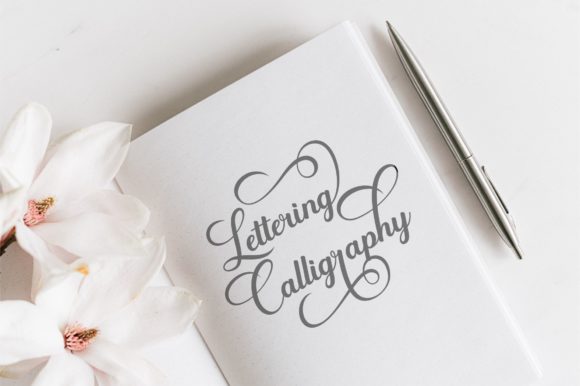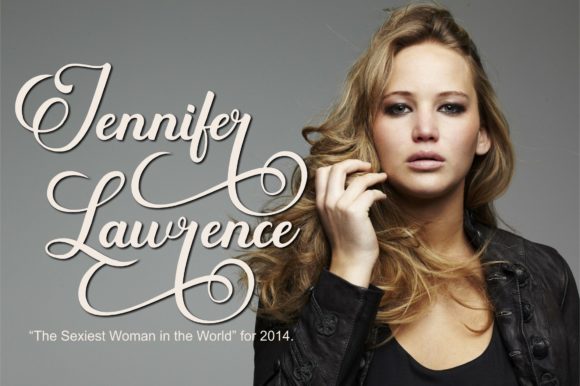
Mozambique Font
db-ku.com - Script & Handwritten -- Mozambique feels incredibly elegant and flowing. It looks beautiful on thank you cards, quotes, greeting cards, logos, business cards, and every other design which needs a personalized touch. It features a varying baseline, smooth lines, gorgeous glyphs, and stunning alternates.